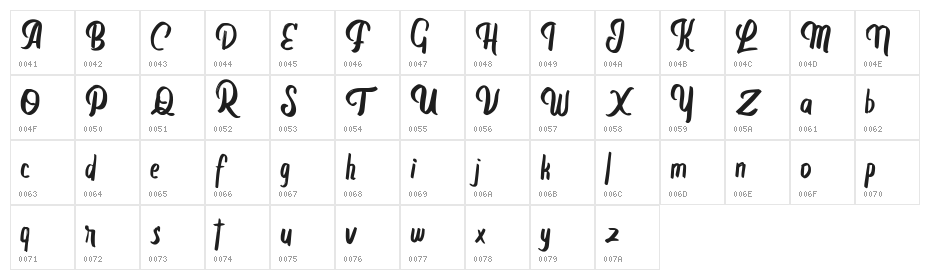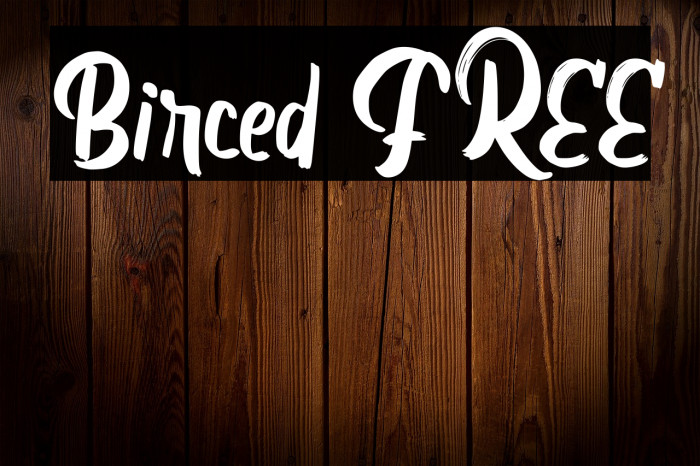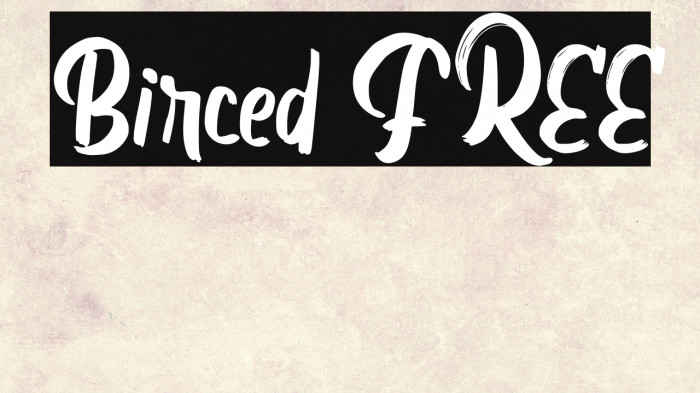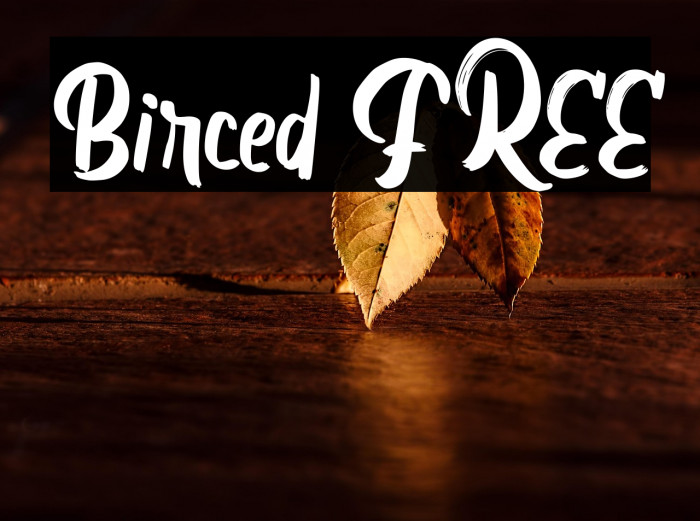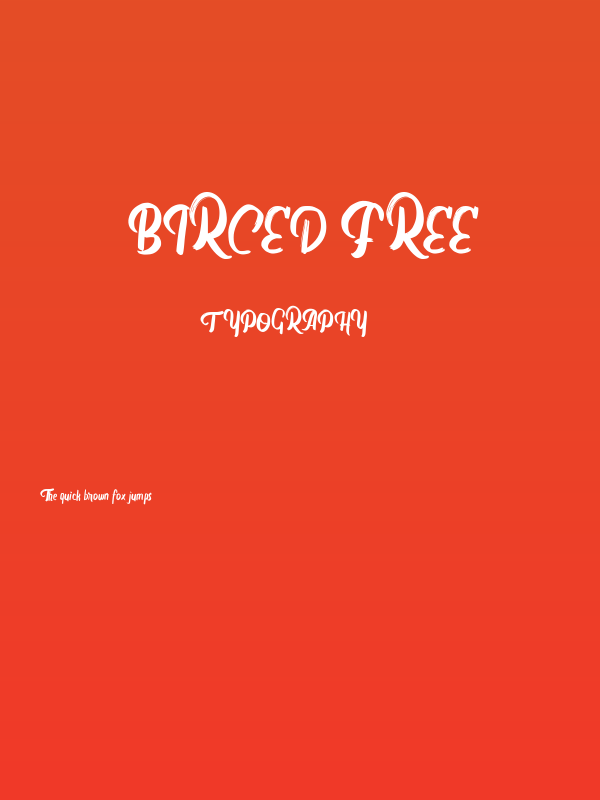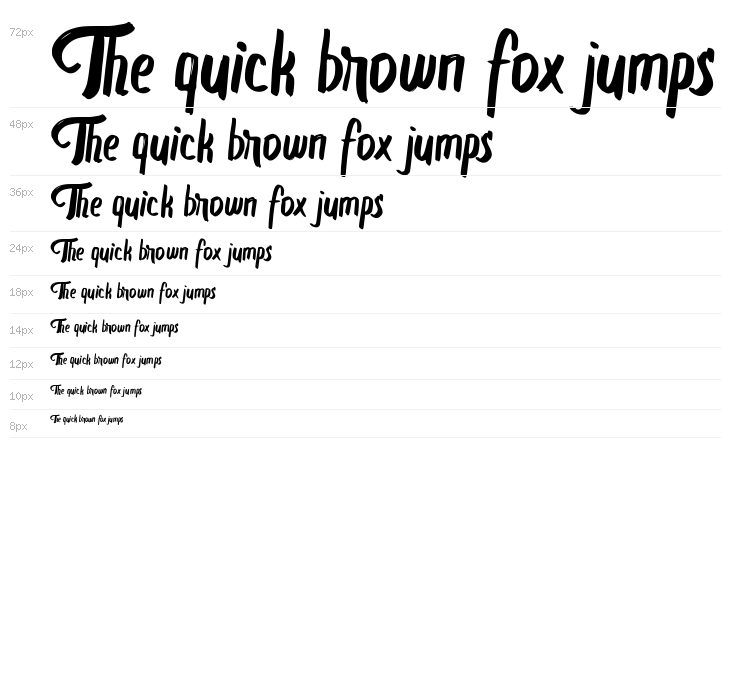
Birced FREE Font
Birced FREE Description
This font exhibits a bold and expressive style with a handwritten flair. The characters are designed with a flowing script that combines both elegance and a touch of playfulness. The uppercase letters are particularly striking, with sweeping curves and dynamic strokes that create a sense of movement. The lowercase letters maintain this fluidity, ensuring a cohesive look across text. The font's unique character is further enhanced by its moderate contrast in stroke thickness, adding depth and visual interest. This font is well-suited for creative projects that require a personal touch, such as invitations, branding, and artistic designs.
| Use Case | Logos, Headlines, Artistic designs |
| Proposed Projects | Ideal for invitations, branding, artistic designs, and creative projects. |